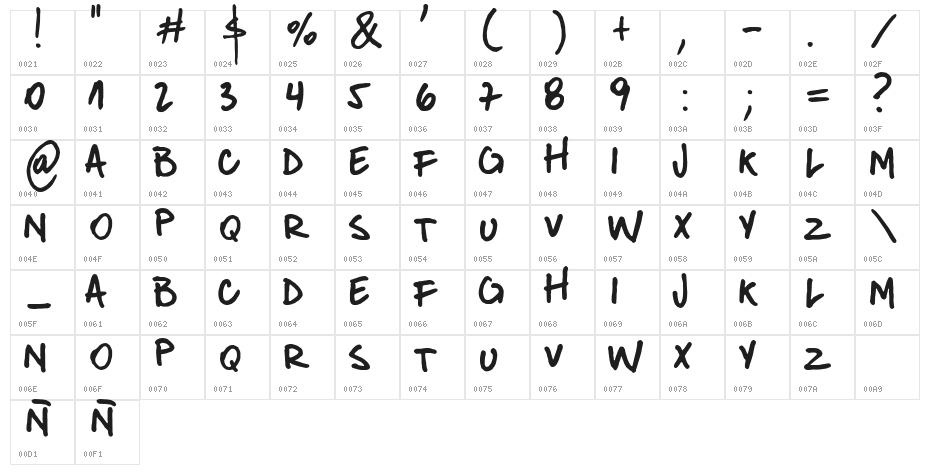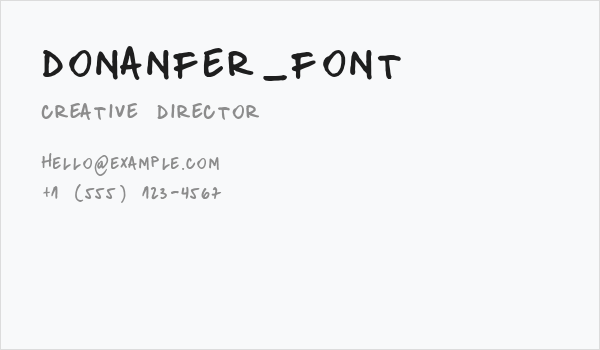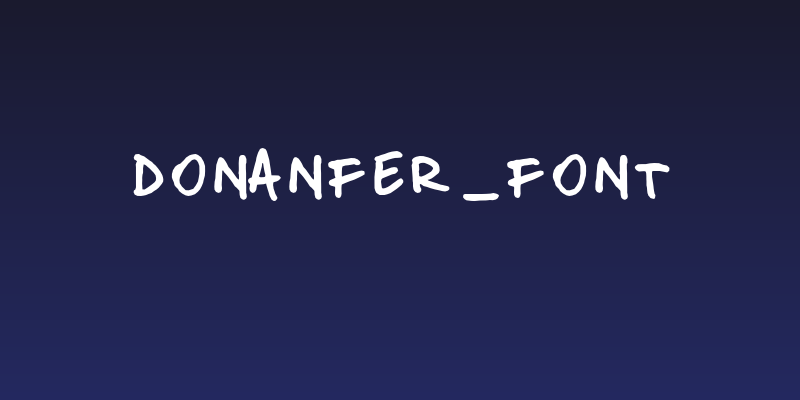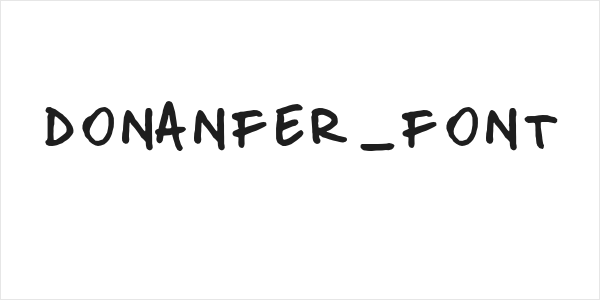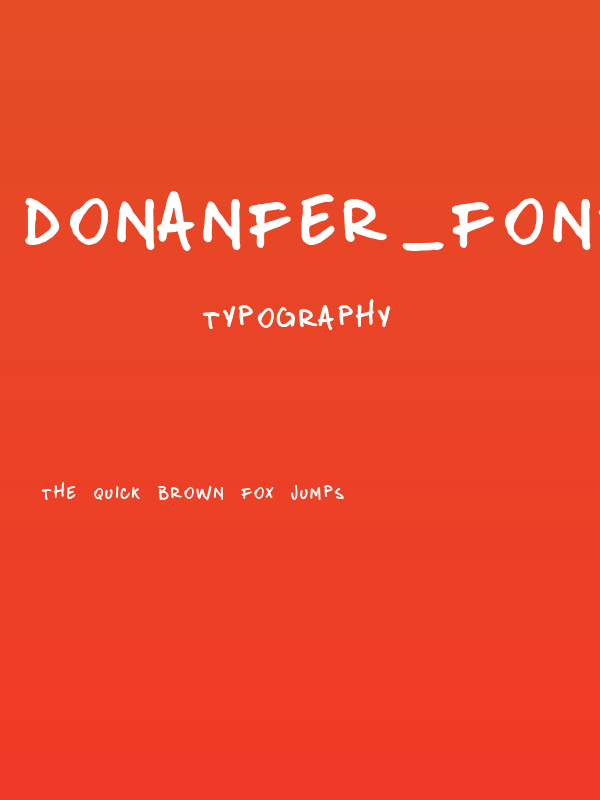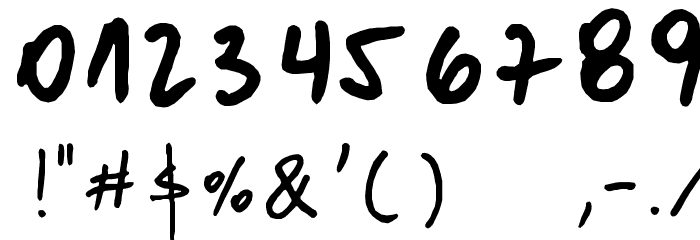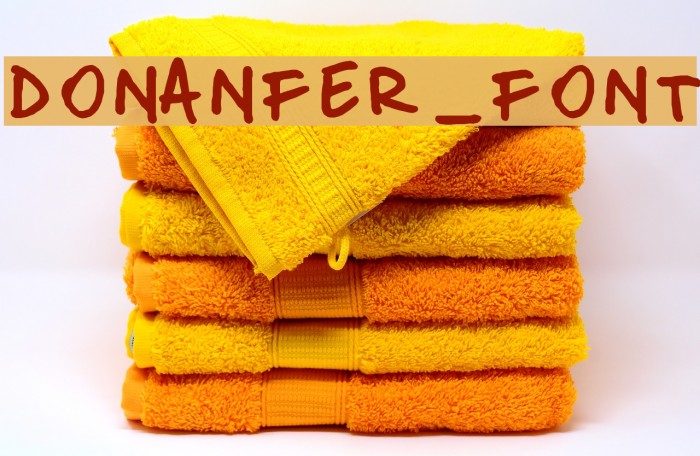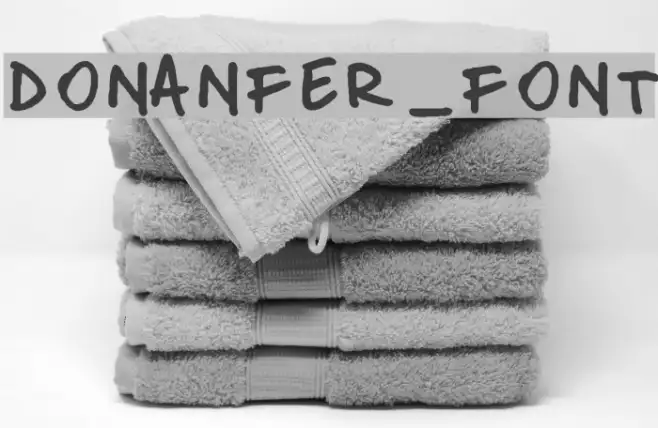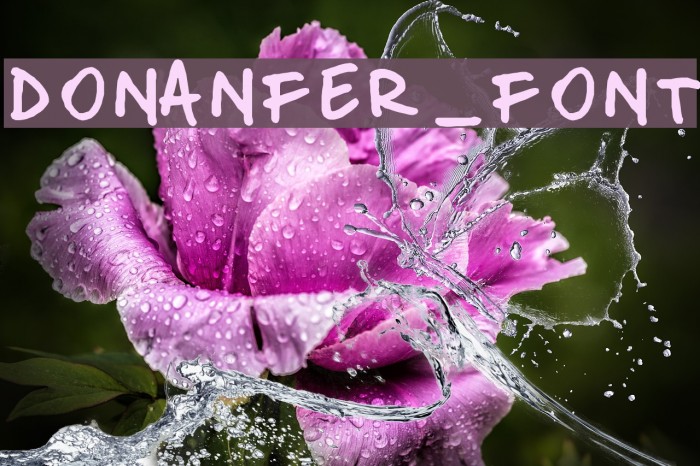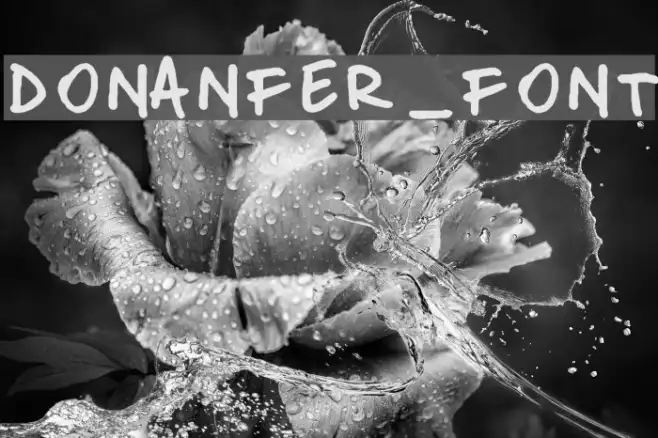
donanfer_font Font
donanfer_font Description
This font exhibits a playful and casual handwritten style, characterized by its irregular strokes and organic flow. The letters have a slightly uneven baseline, adding to the informal and approachable feel. The uppercase and lowercase letters maintain a consistent style, with rounded edges and a slight slant that suggests movement. The numbers and special characters follow the same aesthetic, ensuring a cohesive look across all glyphs. This font is ideal for projects that require a personal touch, such as greeting cards, invitations, or any design that benefits from a human element. Its legibility and charm make it suitable for both digital and print media.
| Use Case | Headlines, Informal text, Personal projects |
| Proposed Projects | Greeting cards, invitations, personal branding, social media graphics. |